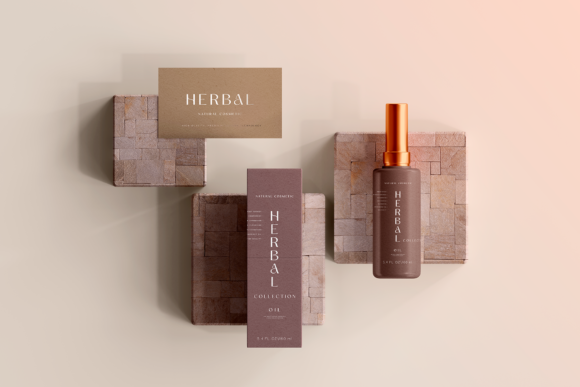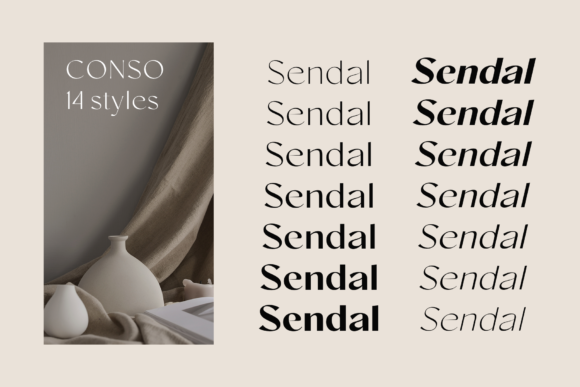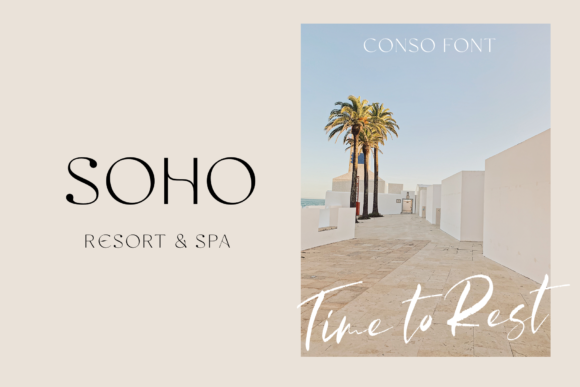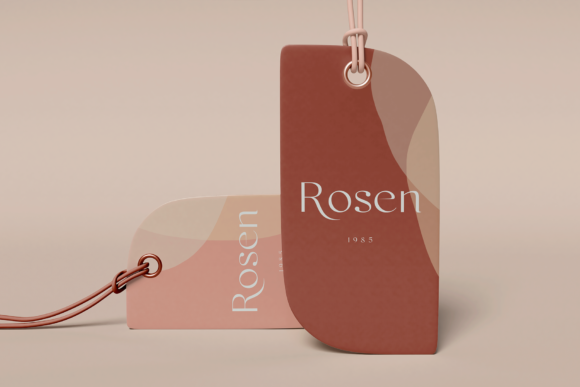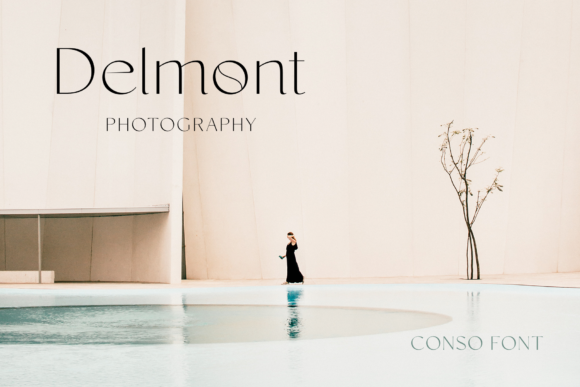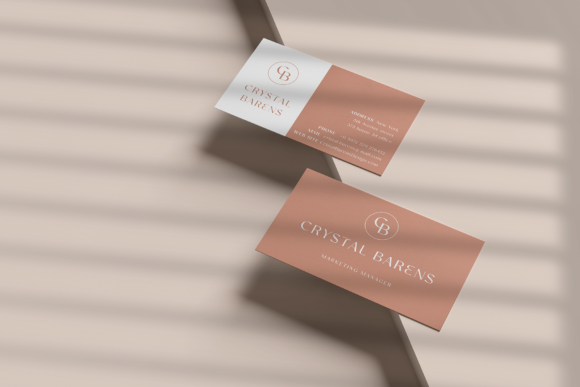
Introducing Conso Font: The Ultimate Modern Sans-Serif Font Family
Are you a designer or crafter looking for a versatile and elegant font to elevate your projects? Look no further than Conso Font, a modern sans-serif font family that is perfect for a wide range of applications. With its sleek and sophisticated design, Conso Font is ideal for creating stunning logos, advertisements, packaging, book covers, magazines, and more.
What Makes Conso Font Stand Out?
Conso Font is a multi-purpose font that boasts a unique blend of contrast, modernity, and readability. Its elegant design features a range of weights, from thin to bold, allowing you to add depth and nuance to your projects. The font family includes both upright and italic styles, providing you with even more flexibility and creative freedom.
Key Features of Conso Font
- Elegant and Modern Design: Conso Font features a sleek and sophisticated design that is perfect for modern projects.
- Multi-Purpose: This font is versatile and can be used for a wide range of applications, from logos and advertisements to packaging and book covers.
- Seven Weights: Conso Font includes seven weights, from thin to bold, allowing you to add depth and nuance to your projects.
- Upright and Italic Styles: The font family includes both upright and italic styles, providing you with even more flexibility and creative freedom.
- PUA Encoded: Conso Font is PUA encoded, making it easy to access all of the amazing glyphs and ligatures.
Why Choose Conso Font?
Conso Font is the perfect choice for designers and crafters who want to create stunning projects that stand out from the crowd. Its unique blend of contrast, modernity, and readability makes it ideal for a wide range of applications. With Conso Font, you can:
- Create stunning logos that capture the essence of your brand.
- Design eye-catching advertisements that grab attention.
- Develop beautiful packaging that showcases your product.
- Produce professional-looking book covers and magazines.
- Add a touch of elegance to your headings and descriptions.
- Customize your text with a range of weights and styles.
- Access a wide range of glyphs and ligatures using the PUA encoded font.
- Pair Conso Font with other fonts to create a unique look.
Conso Font is a versatile and elegant font family that is perfect for designers and crafters who want to create stunning projects. With its modern sans-serif design, range of weights, and PUA encoding, Conso Font is the ultimate multi-purpose font. Whether you’re creating logos, advertisements, packaging, or book covers, Conso Font is the perfect choice. So why wait? Download Conso Font today and take your designs to the next level!